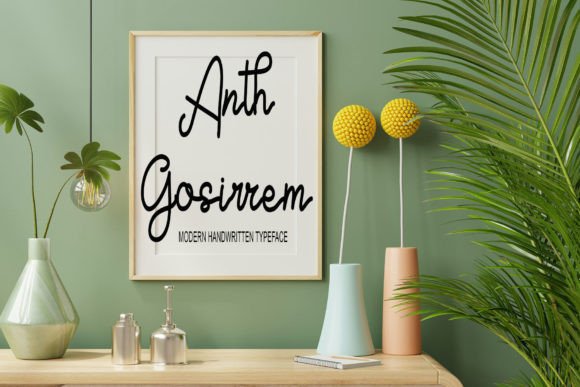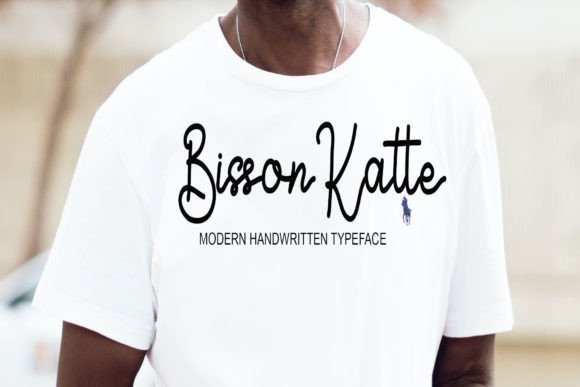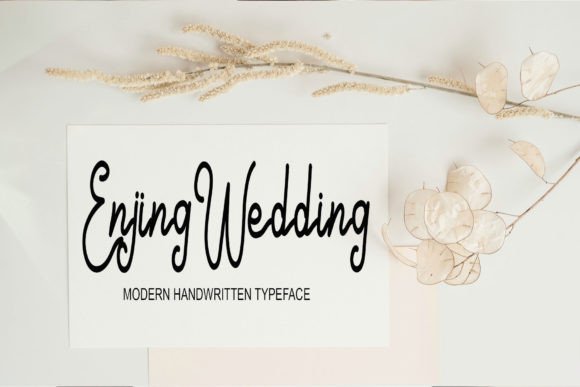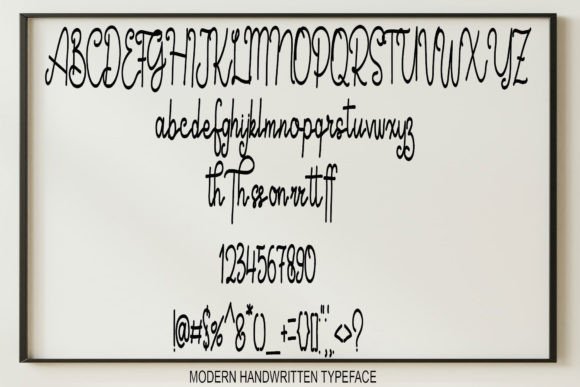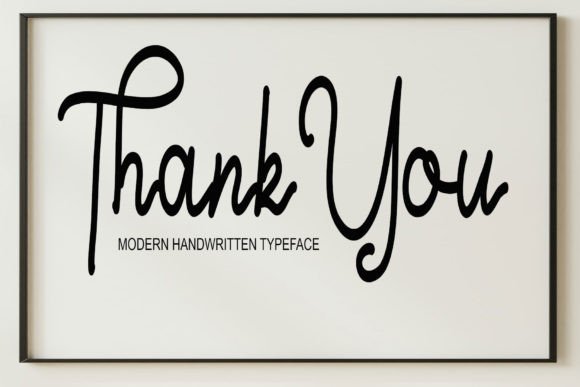
HomeScript FontsThe Omiffujin Font Script Fonts The Omiffujin Font FacebookTwitterPinterestWhatsApp 1 of 6 The Omiffujin Font Poster 2... The Omiffujin Font Poster 3... The Omiffujin Font Poster 4... The Omiffujin Font Poster 5... The Omiffujin Font Poster 6... About The Omiffujin Font The Omiffujin is a fun and quirky handwritten font. Add it to your crafty ideas and enjoy the results! DOWNLOAD NOW People also explored Letterla Font Berkyn Romance Font Jamet Font Barcelona Font Lovely Summer Font Cutest Pumpkin Font Blambot Casual Monograph Rydhesti Font 176 0 TagsThe Omiffujin Font Previous articleThe Kubano FontNext articleBarriton Paradise Font LEAVE A REPLY Cancel reply Comment: Please enter your comment! Name:* Please enter your name here Email:* You have entered an incorrect email address! Please enter your email address here Website: Save my name, email, and website in this browser for the next time I comment. Personal Use Free Pan Pizza Personal Use Free Read more about this font Helsinki Personal Use Free Read more about this font Girls Personal Use Free Read more about this font Playground Clip Art Personal Use Free Read more about this font BLOG The 10 Best Handwriting Fonts to Add Personality to Your Designs 10 of the Best Handwriting Fonts for Adding Personality to Your Designs There will undoubtedly be no other better choice than handwriting fonts to give... Where to Buy American Fonts Online in 2024 Free Fonts Risk: Why Free Fonts Can Be Dangerous for Designers Free vs Paid Fonts: Why Investing in Premium Fonts Is Worth It